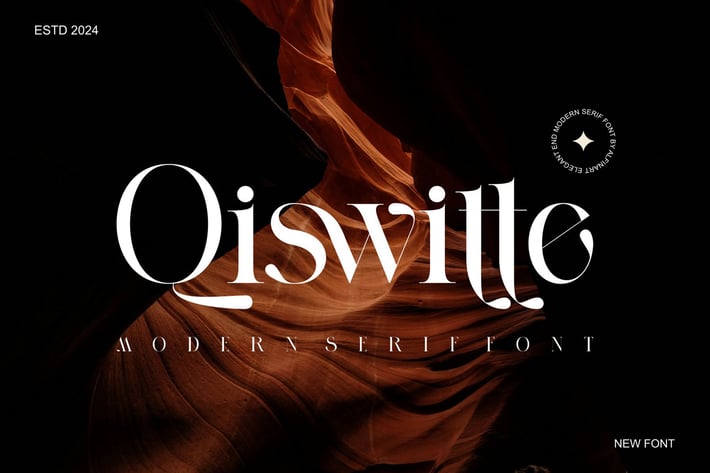
Qiswitte Modern Serif Typeface
Qiswitte Modern Serif Typeface inspired by the famous minimalist logo perfect for the purposes of designing templates, brochures, videos, advertising branding, logos, invitation, layout design, elegant crafting, beauty design and other